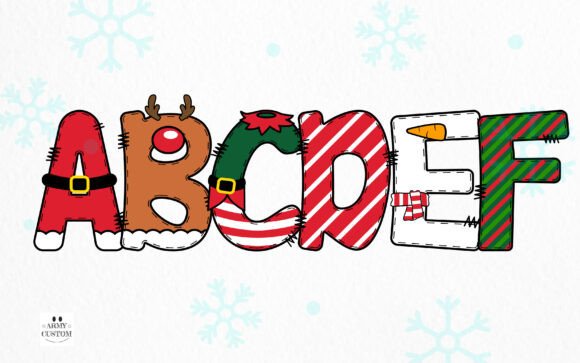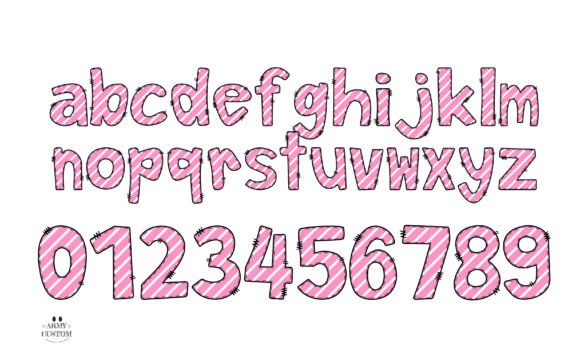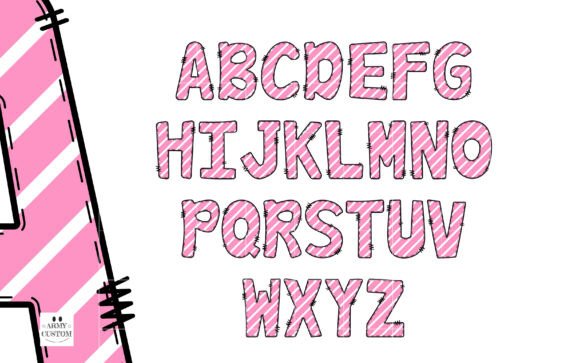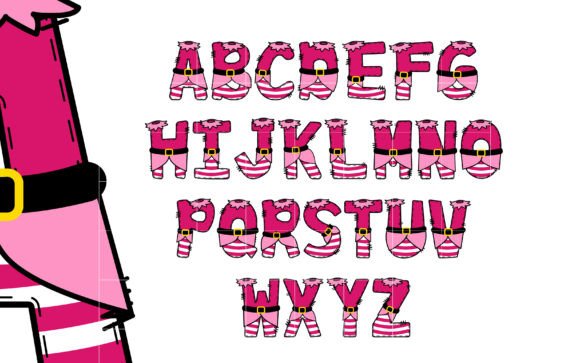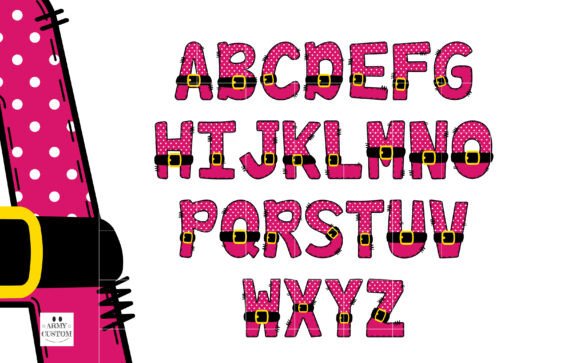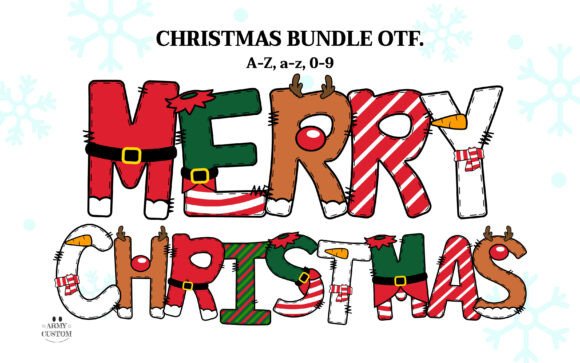
Introducing the Christmas Bundle Font: A Whimsical Addition to Your Holiday Design Toolkit
Are you looking for a way to add a dash of holiday cheer to your design projects? Look no further than the Christmas Bundle Font, a playful and vibrant color font that brings the magic of the season to life. Imbued with a sense of whimsy, this 6-styled Santa, Elf, Reindeer, Snowman font is the perfect addition to your holiday design toolkit.
A Jovial Style for Vibrant Holiday Decorations
The Christmas Bundle Font is designed to bring a sense of joy and merriment to your holiday designs. Its jovial style makes it an ideal choice for creating vibrant holiday decorations, from festive signage to merry gift tags. Whether you’re a designer, crafter, or DIY enthusiast, this font is sure to become a favorite in your holiday design arsenal.
Every Letter a Joyous Celebration
With the Christmas Bundle Font, every letter spelled out becomes a joyous celebration, inspired by the adorable antics of Santa’s helpers. The font features six different styles, each one showcasing a different aspect of the holiday season. From the jolly old elf himself to the mischievous reindeer and snowman, each style is designed to bring a smile to your face and a touch of holiday magic to your designs.
Tips for Using the Christmas Bundle Font
Here are a few tips for getting the most out of the Christmas Bundle Font:
• Use the font to create festive holiday decorations, such as gift tags, banners, and signs.
• Add a dash of merriment to your holiday designs, from Christmas cards to social media graphics.
• Experiment with different styles and colors to create a unique look that suits your brand or personal style.
• Pair the font with other holiday-themed graphics and illustrations to create a cohesive and festive design.
Why Choose the Christmas Bundle Font?
So why choose the Christmas Bundle Font for your holiday design needs? Here are just a few reasons:
• Unique and playful design that’s sure to stand out.
If you’re looking for a way to add a touch of holiday magic to your design projects, the Christmas Bundle Font is the perfect choice. With its playful and vibrant design, versatility, and ease of use, this font is sure to become a favorite in your holiday design toolkit. So why wait? Download the Christmas Bundle Font today and start creating your own festive holiday designs!